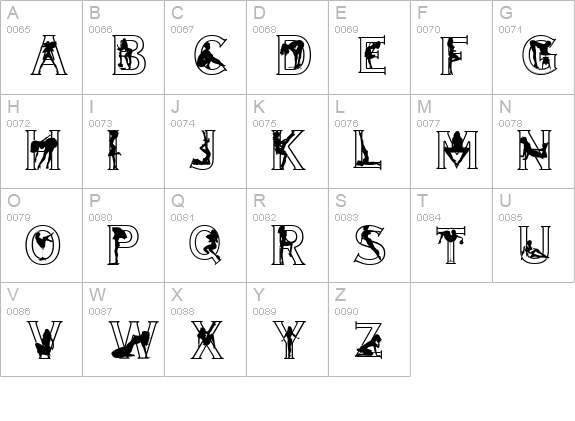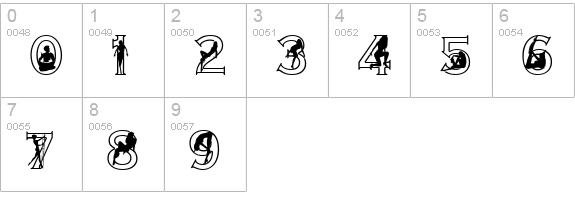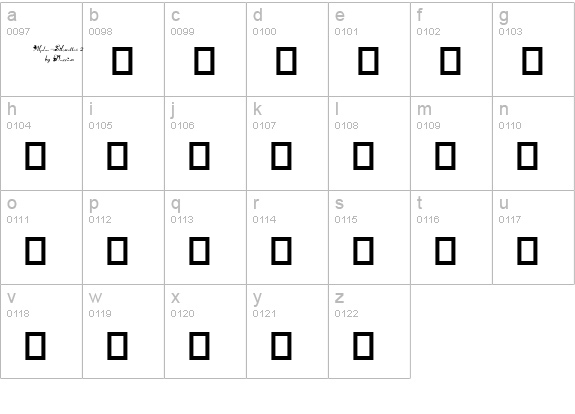
Introducing Alpha-Silouettes 2 font, a captivating and stylish typeface that exudes modern elegance and artistic flair. This unique font features intricate silhouettes and striking outlines that add a touch of sophistication to any design project. Perfect for logos, branding, posters, and more, Alpha-Silouettes 2 font is sure to make a lasting impression. What sets Alpha-Silouettes 2 font apart is its seamless blend of creativity and versatility, making it a must-have for designers looking to elevate their work to the next level. Whether you're working on a fashion magazine spread, a boutique logo, or a trendy social media graphic, this font is sure to add a touch of class and sophistication. The best part? Alpha-Silouettes 2 font is available for free download at FontsMarket.com, allowing you to bring your creative vision to life without breaking the bank. So why wait? Elevate your designs with the elegant charm of Alpha-Silouettes 2 font today!